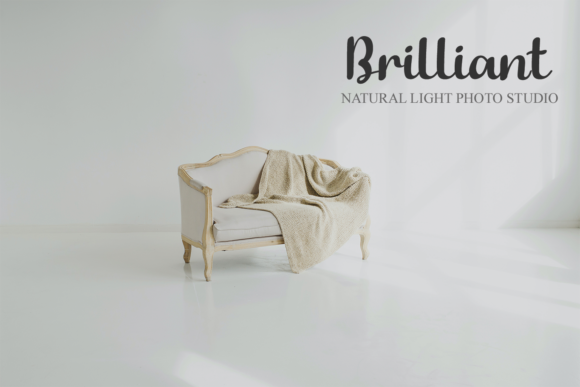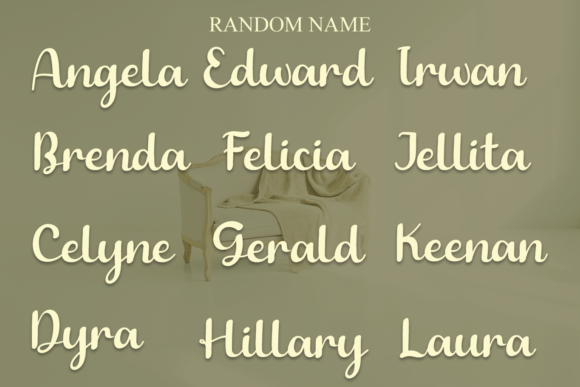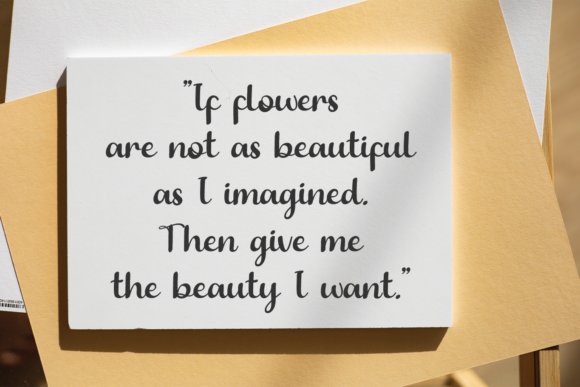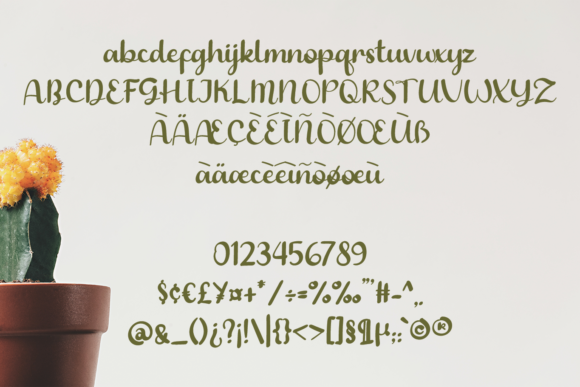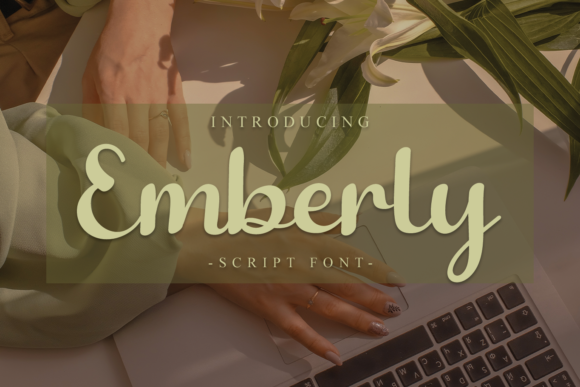
Introducing Emberly Font: The Epitome of Delicate Chic
In the world of typography, few fonts manage to strike a balance between delicacy and sophistication. Emberly Font is one such gem that has captured the hearts of designers and crafters alike. With its elegant and refined aesthetic, Emberly feels equally delicate and chic, making it the perfect choice for a variety of design projects.
What Makes Emberly Font Special?
Emberly Font boasts a unique blend of classic and modern elements, setting it apart from other fonts in its category. Its slender lines, intricate details, and subtle flair at the terminals give it a distinctive look that exudes refinement and poise. Whether you’re working on a wedding invitation, a thank you card, or a logo, Emberly Font adds a touch of sophistication that elevates your design to the next level.
Ideal Uses for Emberly Font
One of the standout features of Emberly Font is its versatility. Its delicate yet chic appearance makes it suitable for a wide range of design applications, including:
- Wedding Invitations: Add a touch of romance and elegance to your wedding invitations with Emberly Font.
- Thank You Cards: Express your gratitude in style with Emberly Font’s refined and sophisticated look.
- Quotes: Give your inspirational quotes a boost of elegance with Emberly Font.
- Greeting Cards: Create beautiful and heartfelt greeting cards for any occasion with Emberly Font.
- Logos: Add a touch of sophistication to your brand’s logo with Emberly Font.
- Business Cards: Stand out from the crowd with Emberly Font’s unique and refined look on your business cards.
Why Designers and Crafters Love Emberly Font
Designers and crafters love Emberly Font for its ability to add a customized touch to their projects. Its delicate and chic appearance makes it perfect for:
- Stationery Design: Create beautiful stationery sets, including notecards, journals, and planners, with Emberly Font.
- DIY Projects: Add a personal touch to your DIY projects, such as handmade cards, gift tags, and scrapbooking pages, with Emberly Font.
- Branding: Use Emberly Font to create a cohesive brand identity that exudes elegance and sophistication.
Tips for Using Emberly Font Effectively
To get the most out of Emberly Font, here are some tips to keep in mind:
- Pair with Other Fonts: Pair Emberly Font with other fonts to create a unique and visually appealing combination.
- Use it Sparingly: Use Emberly Font sparingly to create a sense of elegance and sophistication.
In conclusion, Emberly Font is a versatile and elegant font that is perfect for designers and crafters looking to add a touch of sophistication to their projects. Its delicate and chic appearance makes it suitable for a wide range of design applications, from wedding invitations to logos and business cards. With its unique blend of classic and modern elements, Emberly Font is sure to become a favorite among designers and crafters.